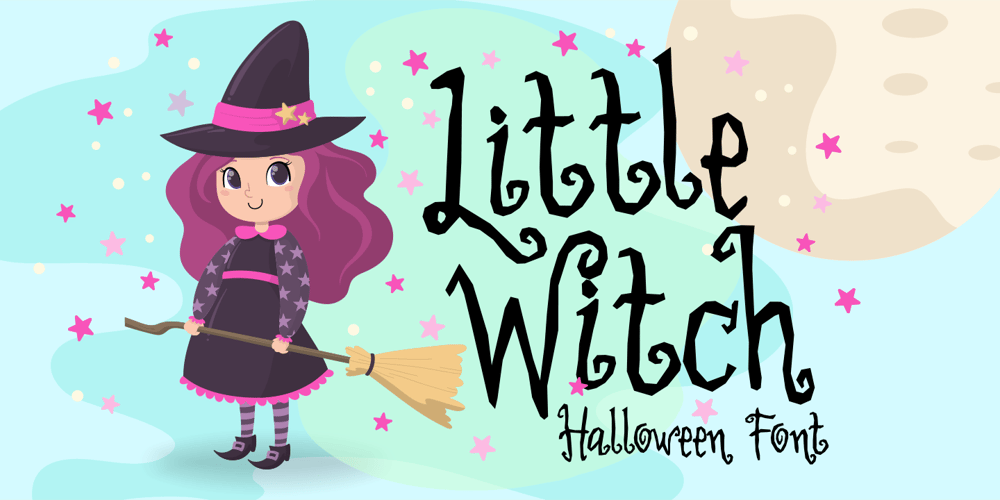
Little Witch
Little Witch font
Little Witch Font Family was designed by Ali Hamidi and published by Brithos Type. Little Witch contains 1 styles and family package options. Little Witch is a cute and incredibly unique display font. Masterfully designed to become a true favorite, this font has the potential to bring each of your creative ideas to the highest level!